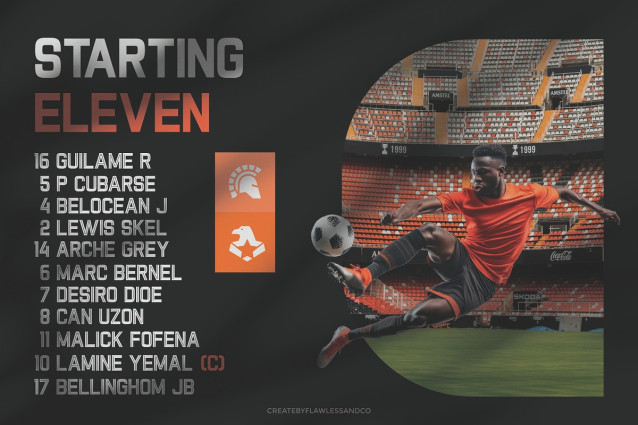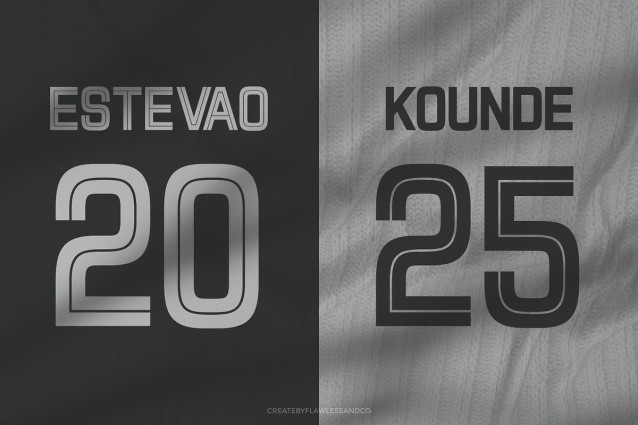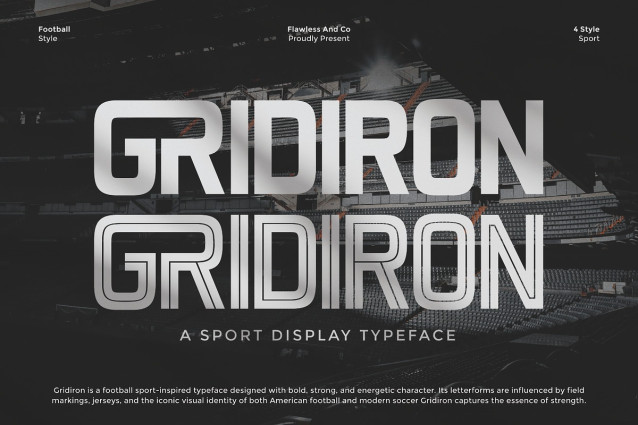
Gridiron Typeface
Gridiron Typeface is a sport-inspired display typeface crafted with bold, strong, and competitive energy. Taking cues from football fields, jersey lettering, and the dynamic identity of modern sports, its powerful letterforms embody determination, grit, and high performance. Perfect for projects that demand impact, Gridiron captures the essence of athletic strength and team spirit, making it an essential choice for sports branding, events, and merchandise.